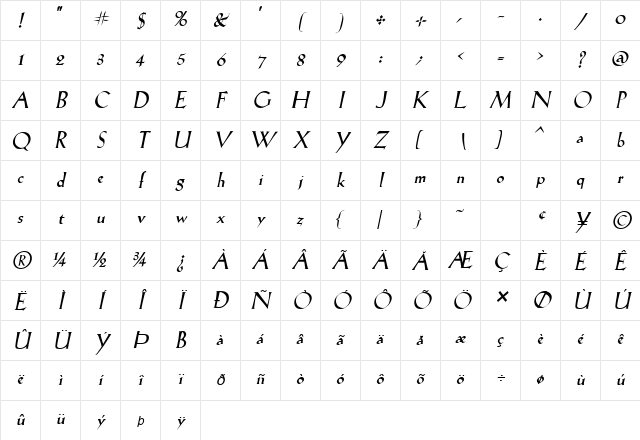
Salem Italic
Salem Family
Salem Italic
Design Context for Salem
Salem is a composed and adaptable typeface that performs quietly and consistently across a wide range of design contexts. The slanted form adds forward momentum and visual energy.
Pro Tip: Use Salem for emphasis, pull quotes, and subheadings where its slanted energy can add rhythm to the layout.